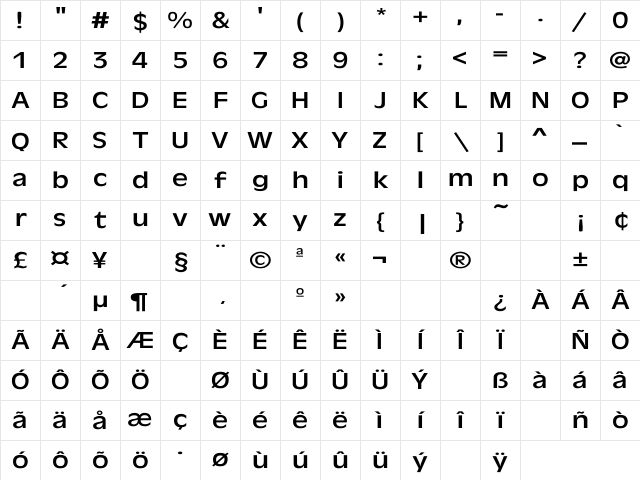
Antique-Olive Wd Regular
Antique-Olive Wd Family
Antique-Olive Wd Regular
Antique-Olive Wd Regular Font Preview
Antique-Olive Wd Regular Uppercase Preview
Antique-Olive Wd Regular Lowercase Preview
Antique-Olive Wd Regular Numeric Preview
Antique-Olive Wd Regular Character Map
Complete Antique-Olive Wd Regular glyph index. Displaying only characters natively supported by Antique-Olive Wd Regular font.
Antique-Olive Wd Regular Character Map
Design Context for Antique-Olive Wd
Antique-Olive Wd wears its vintage influences proudly, with letterforms that recall mid-century signage, classic packaging, and nostalgia-driven design.
Font Pairing: Combine Antique-Olive Wd with a simple slab or neutral sans - period-accurate companions reinforce the vintage feel without competing for attention.
Pro Tip: Lean into Antique-Olive Wd's period character by pairing it with aged paper textures, muted colour palettes, and vintage illustration styles.